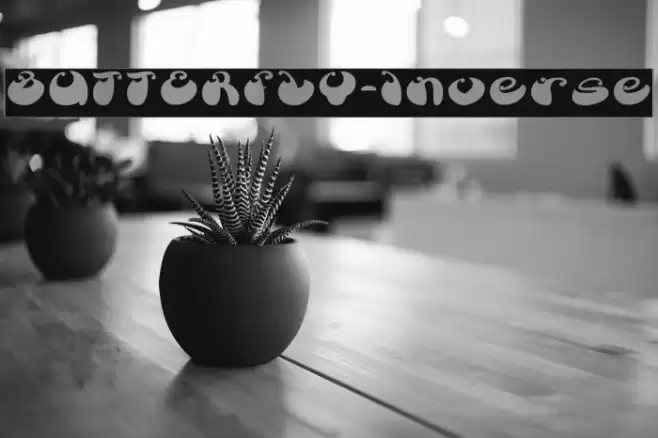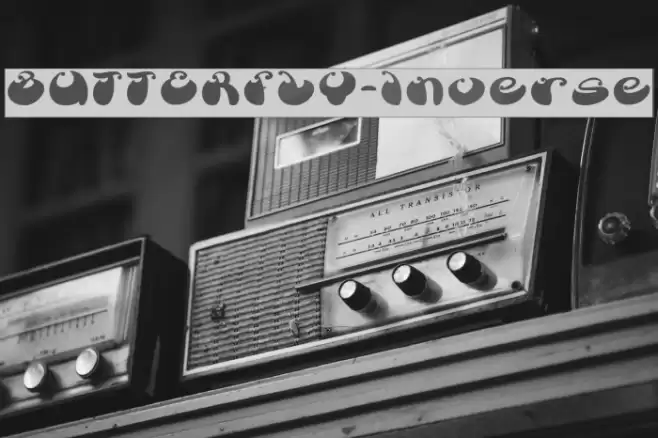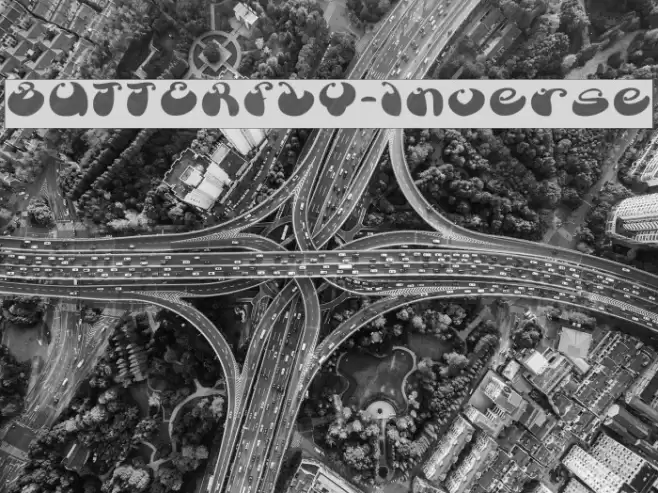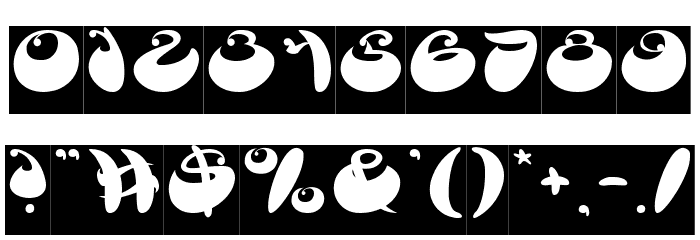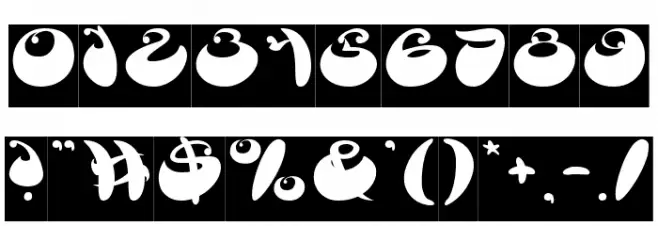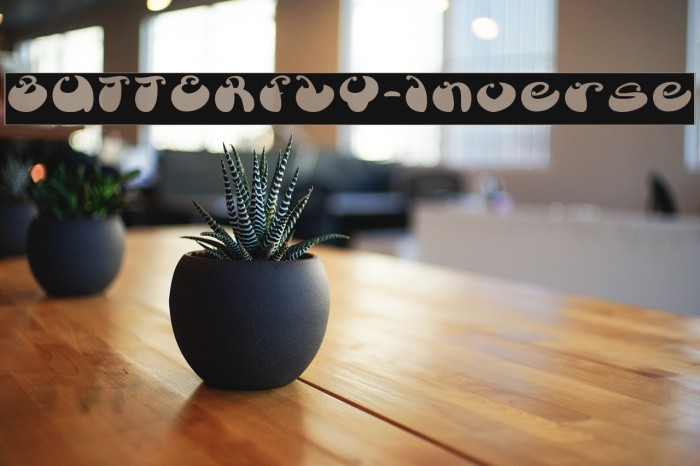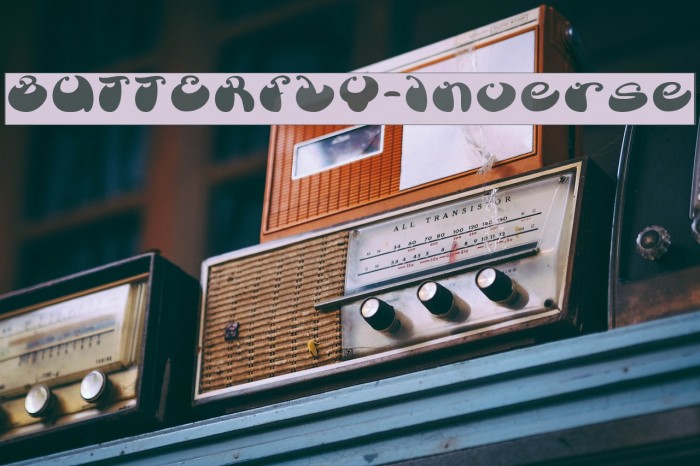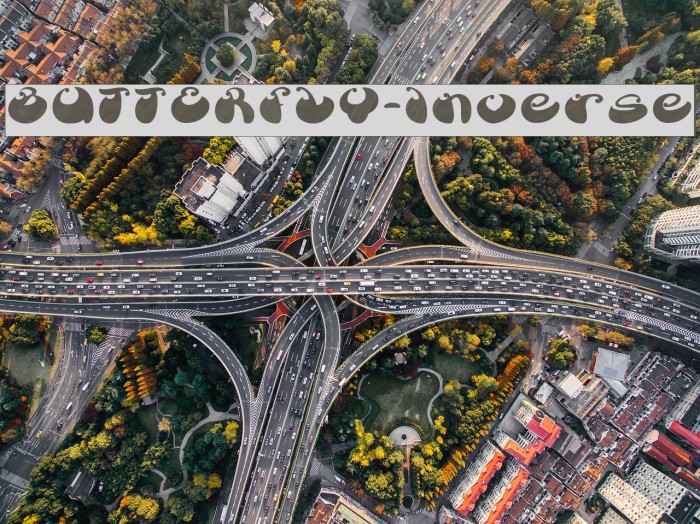
BUTTERFLY-Inverse Font
BUTTERFLY-Inverse Description
This font features a playful and whimsical design, characterized by its bold, rounded forms and unique, bubbly appearance. Each character is crafted with a sense of fluidity and movement, giving it a lively and dynamic feel. The letters are highly stylized, with exaggerated curves and a sense of weight that makes them stand out. The numbers and special characters follow the same design principles, ensuring consistency across the entire set. This font's distinct style makes it ideal for projects that require a fun and engaging visual impact.
A playful, bubbly font with bold, rounded forms and dynamic curves from Uncategorized fonts.
- Proposed Projects: Ideal for children's books, playful branding, party invitations, and creative posters.
- Overall Style: Playful